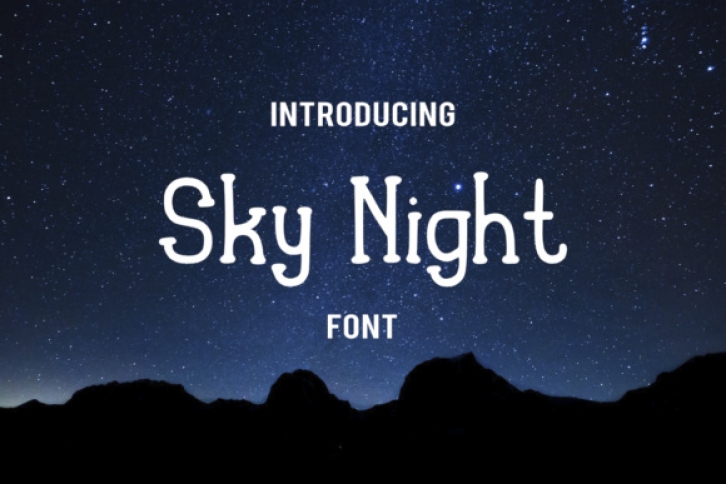
Sky Night is a cutesy display font, ideal for use in friendly and casual works. This font is incredibly legible, and can anchor your designs in a charming way.